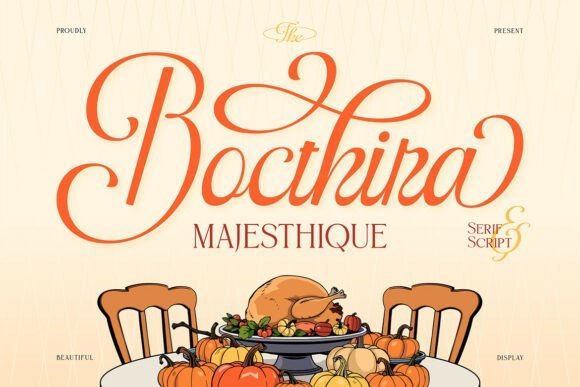
A Season of Gratitude: Introducing the Bocthira Majesthique Font
There’s something magical about designing for the holidays. It’s a time to slow down, reflect on the past year, and express gratitude for the people and experiences that make life special. As I sit down to create a new holiday design, I’m always on the lookout for a font that captures the warmth and elegance of the season. And that’s where the Bocthira Majesthique Font comes in – a beautiful pairing of serif and script that feels like a cozy autumn dinner with loved ones.
This stunning font is perfect for holiday invitations, seasonal branding, and heartfelt greeting cards. Its timeless, majestic touch and graceful flow make every word feel special. Whether you’re designing something to say thank you, celebrate, or simply gather around, the Bocthira Majesthique Font will elevate your designs and make them truly unforgettable.
Key Features of Bocthira Majesthique Font
- Unique Script Style: Bocthira Majesthique Font boasts a unique, elegant script style with intricate flourishes, adding a touch of sophistication to any design.
- Multi-Language Support: The font supports a wide range of languages, including Latin, Cyrillic, and Greek, making it a versatile choice for international designs.
- High-Quality Glyphs: Each glyph in the font has been carefully crafted to ensure high-quality rendering, with precise details and smooth curves.
- Font Weight and Style Options: Bocthira Majesthique Font offers a range of font weights and styles, including regular, bold, italic, and bold italic, giving designers flexibility and creative freedom.
Designer Review: Bocthira Majesthique Font
I recently had the chance to work with the Bocthira Majesthique font, and I must say, it has its strengths and weaknesses. ✨ The first thing that caught my eye was the elegant and sophisticated design. It’s perfect for luxury branding, high-end packaging, and other premium applications where a touch of sophistication is needed.
The font’s unique combination of serifs and flourishes adds a level of sophistication and drama to any design. ✨ The uppercase letters are particularly striking, with their intricate details and ornaments. The font also includes a range of ligatures and alternates that can add an extra layer of personality to your designs.
- Elegant and sophisticated design
- Perfect for luxury branding and high-end packaging
- Unique combination of serifs and flourishes
- Range of ligatures and alternates
- ⚠️ Limited language support (only includes Latin-based characters)
- ⚠️ May not be suitable for body text due to its ornate design
- ⚠️ Some characters may not be easily readable at small font sizes
Overall, I think the Bocthira Majesthique font is a great choice for designers looking to add a touch of luxury and sophistication to their designs. However, it’s not without its limitations, and designers should be aware of these before using it in their projects.
Practical Application Guide for Bocthira Majesthique Font
To get the most out of Bocthira Majesthique Font, use it to create visually appealing headings, titles, and body text.
Pair the font with complementary colors and graphics to create a cohesive design.
Experiment with different font sizes and styles to add depth and interest to your design.
Bocthira Majesthique Font is ideal for:
1. Creating luxury or high-end designs.
2. Adding a touch of elegance to your branding or marketing materials.